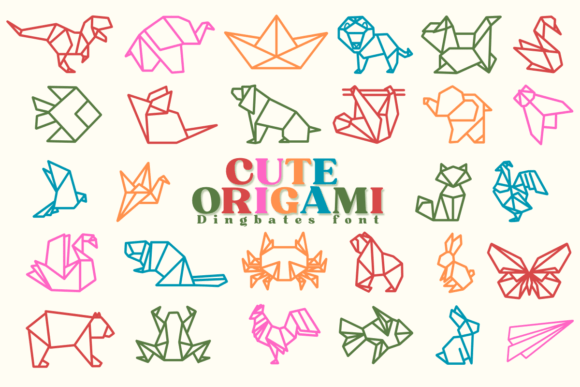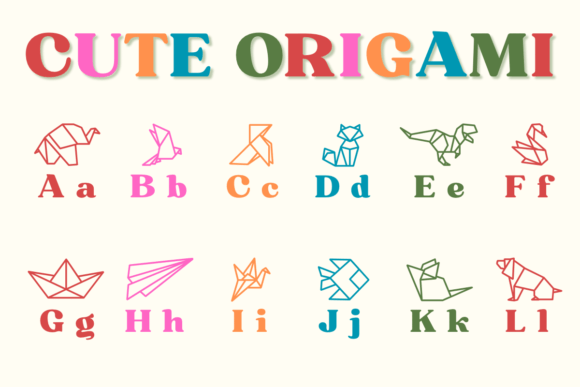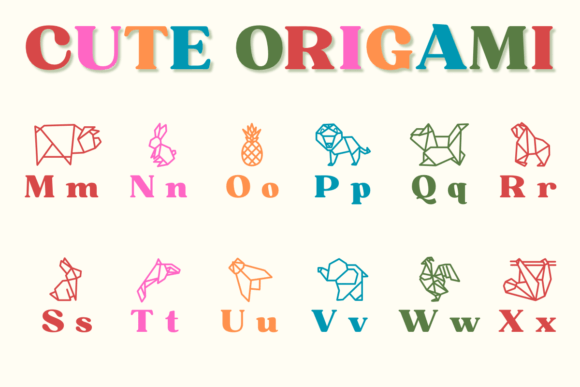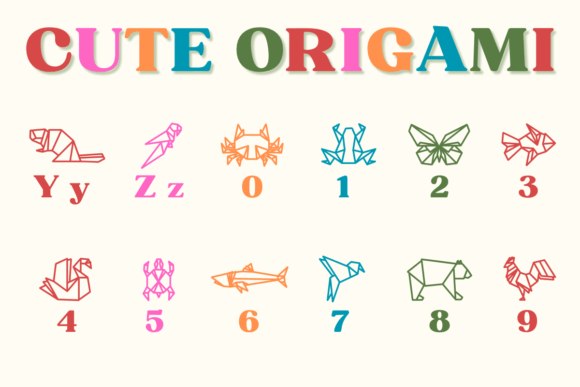
Cute Origami Font
About the Cute Origami Font
The Cute Origami Font offers a perfect balance of form and function for your design needs. “Cute Origami” is a special type of font where each letter is shaped like a different origami animal. Each character looks like a folded paper animal, like a tiny zoo made out of letters!
This font’s playful, friendly personality makes it ideal for children’s books, branding for toy companies, or packaging for playful products. It works exceptionally well in headlines, short slogans, and playful logos where its unique charm can shine. However, due to its low readability, it’s unsuitable for body text or UI elements requiring extended reading.
“Cute Origami” pairs well with clean sans-serif fonts like Helvetica or Open Sans for a balanced contrast, creating a professional yet approachable feel. Alternatively, a simple serif like Garamond or a rounded geometric sans-serif could soften its playful energy, making it suitable for slightly more sophisticated applications.
Avoid using this font in projects requiring high readability or a serious, formal tone. Its whimsical nature might clash with such contexts.
Cute Origami Font Usage Examples
Cute Origami Font Example